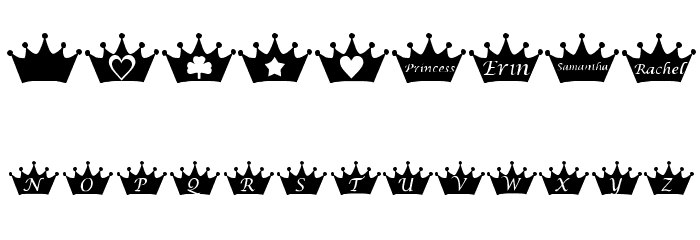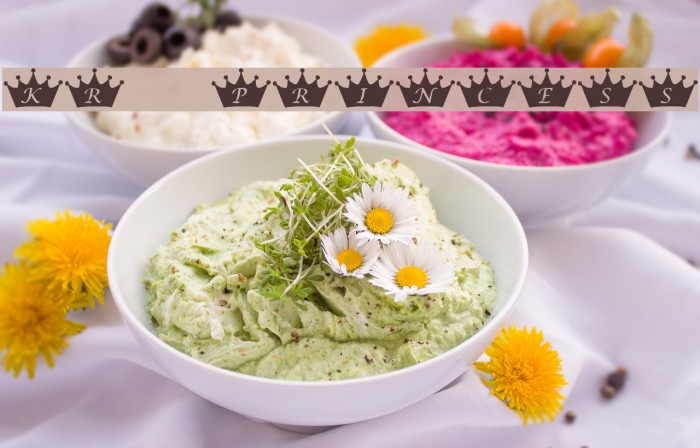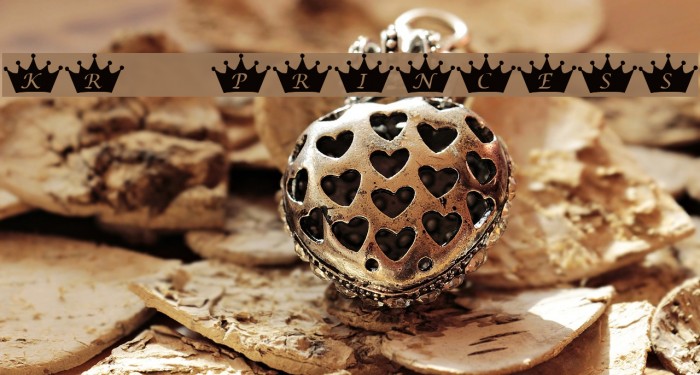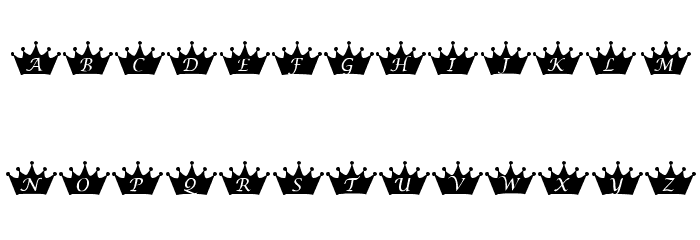
KR PRincEsS Font
KR PRincEsS Description
This decorative font features letters encased within crown shapes, giving it a regal and playful appearance. Each letter is centered within a stylized crown, adding a whimsical touch to the design. The font is characterized by its unique integration of text and graphic elements, making it stand out for creative and themed projects. The letters are evenly spaced within the crowns, ensuring readability while maintaining the decorative aspect. This font is ideal for projects that require a touch of elegance and fantasy, such as invitations, children's books, or themed events.
A decorative font with letters inside crown shapes, perfect for regal-themed projects from Uncategorized fonts.
- Proposed Projects: Ideal for invitations, children's books, themed events, and decorative signage.
- Use Case: Headlines, Logos, Decorative text